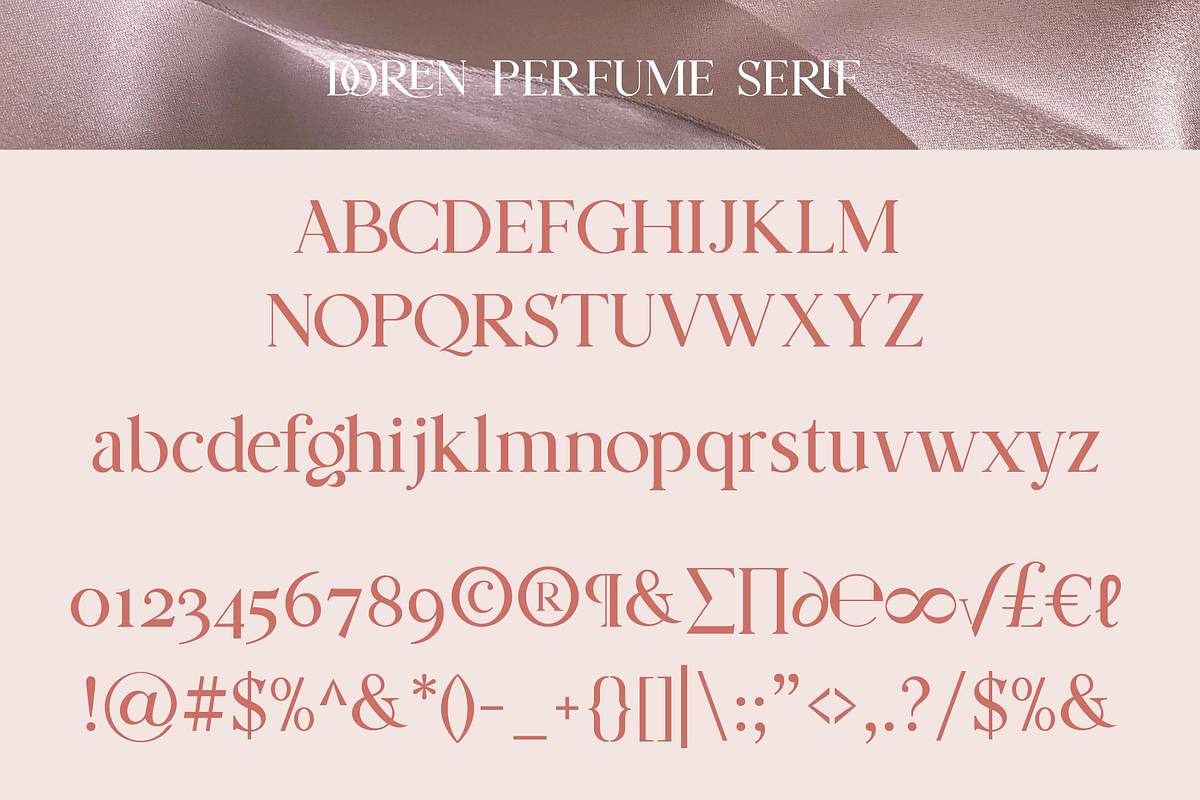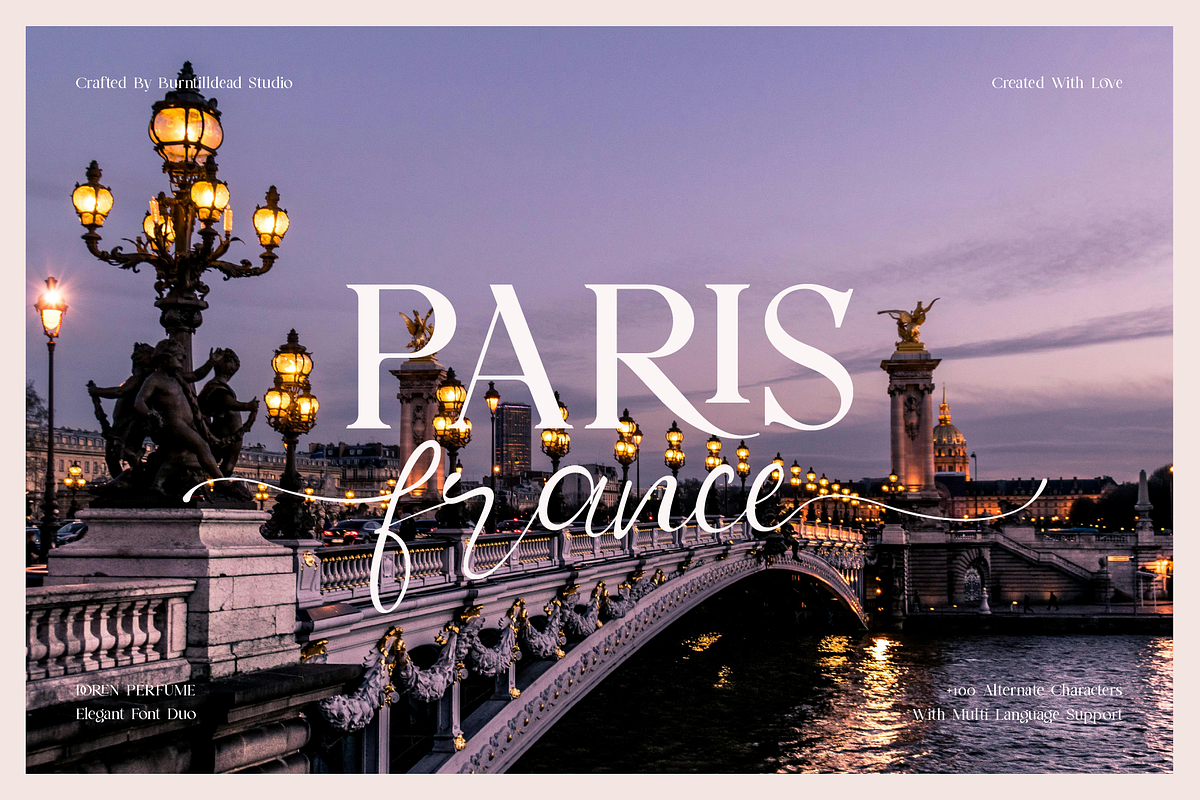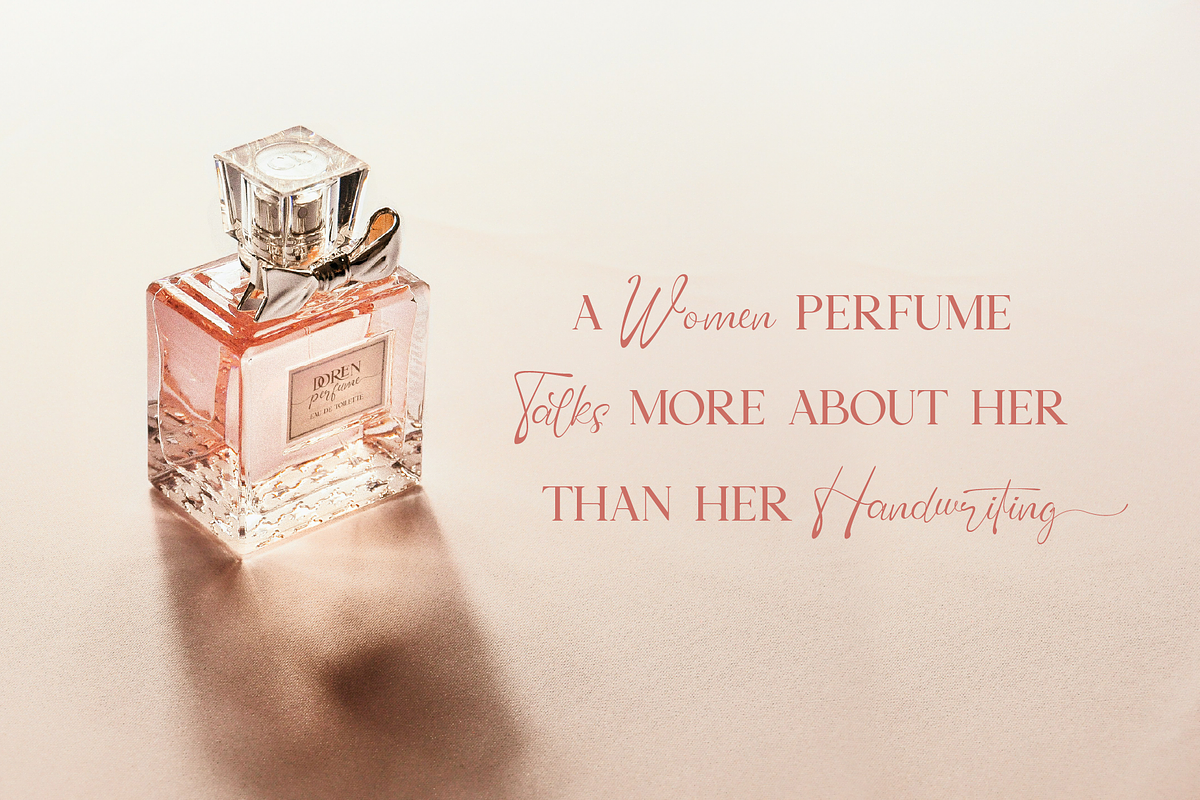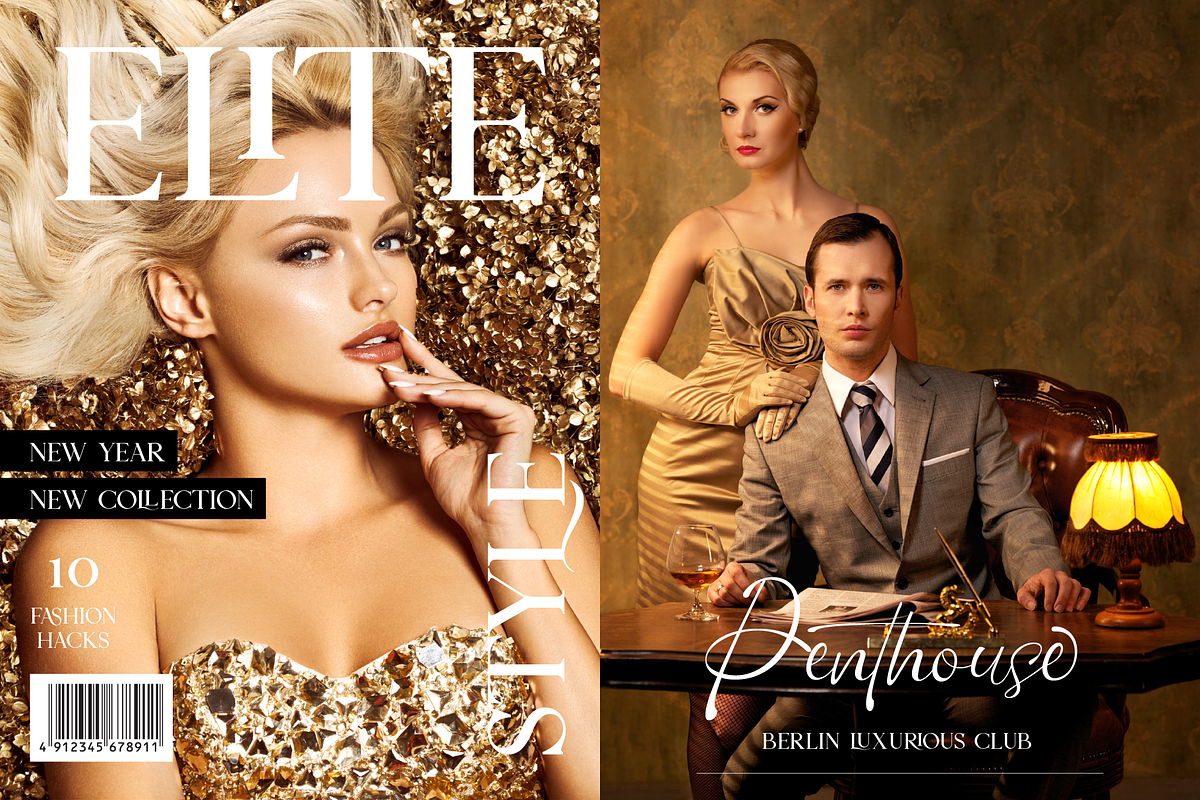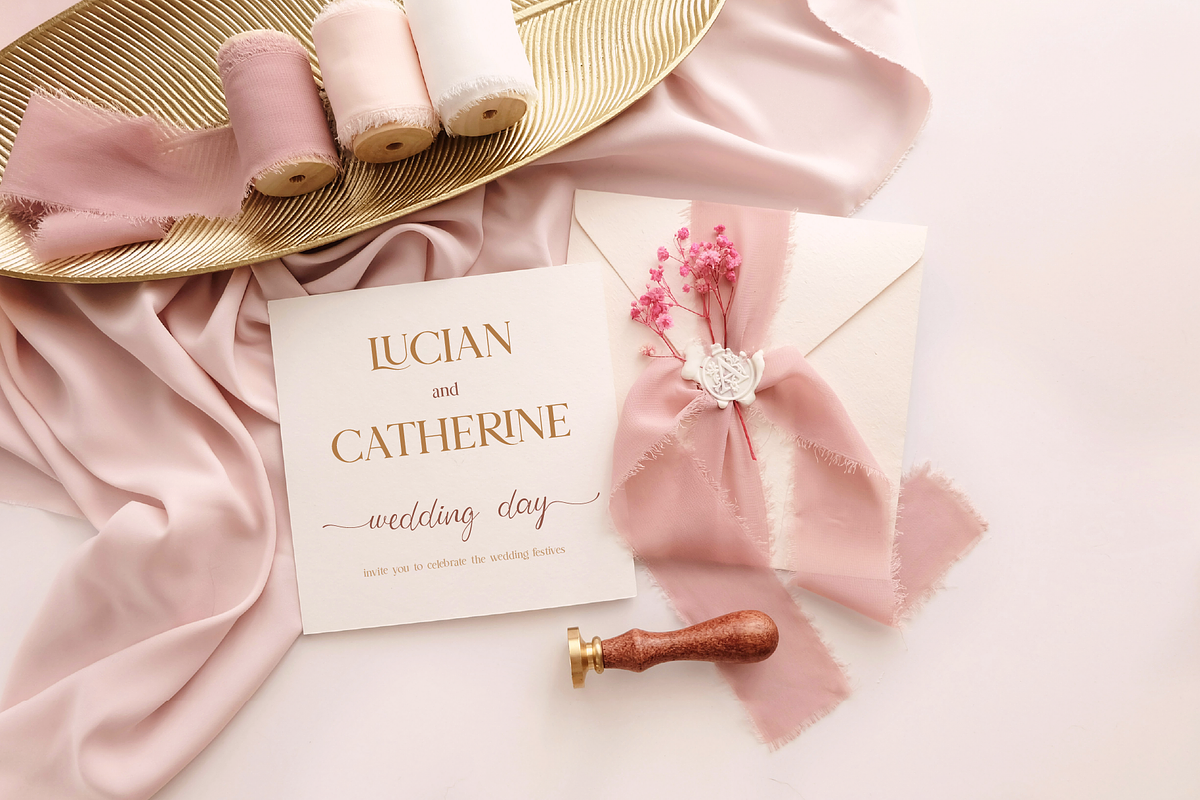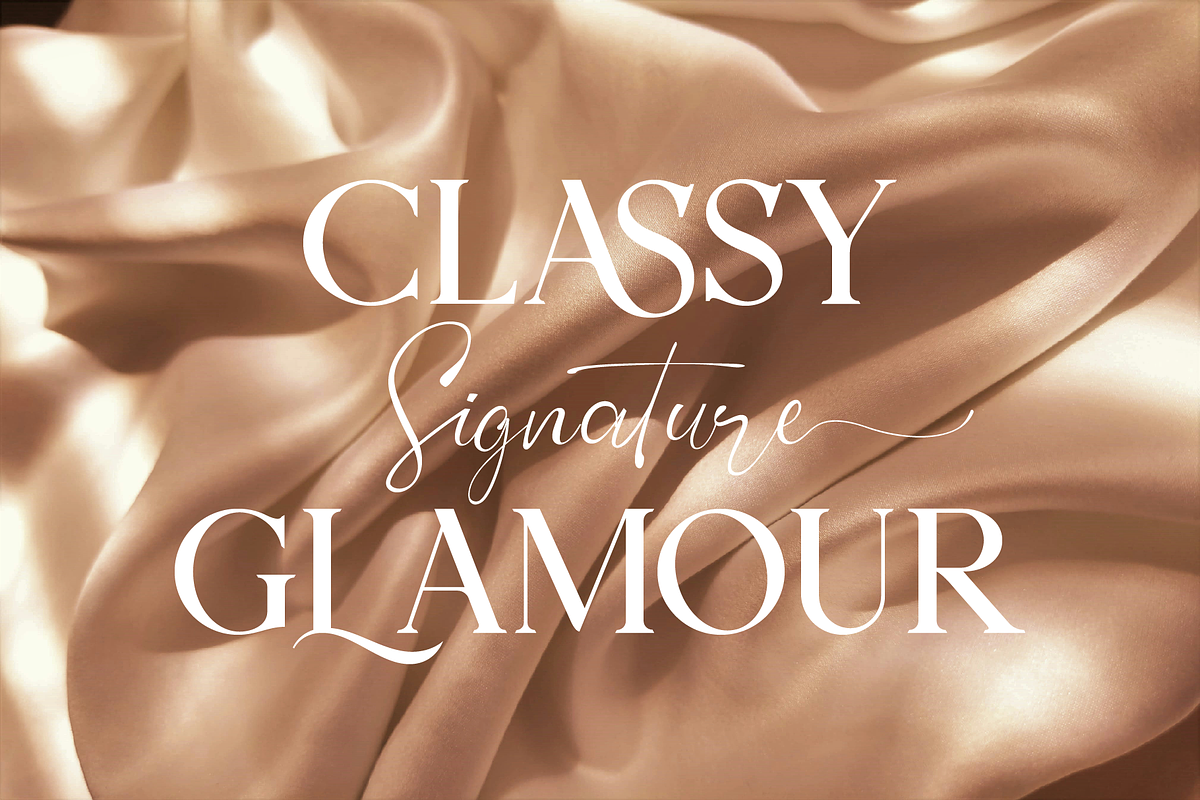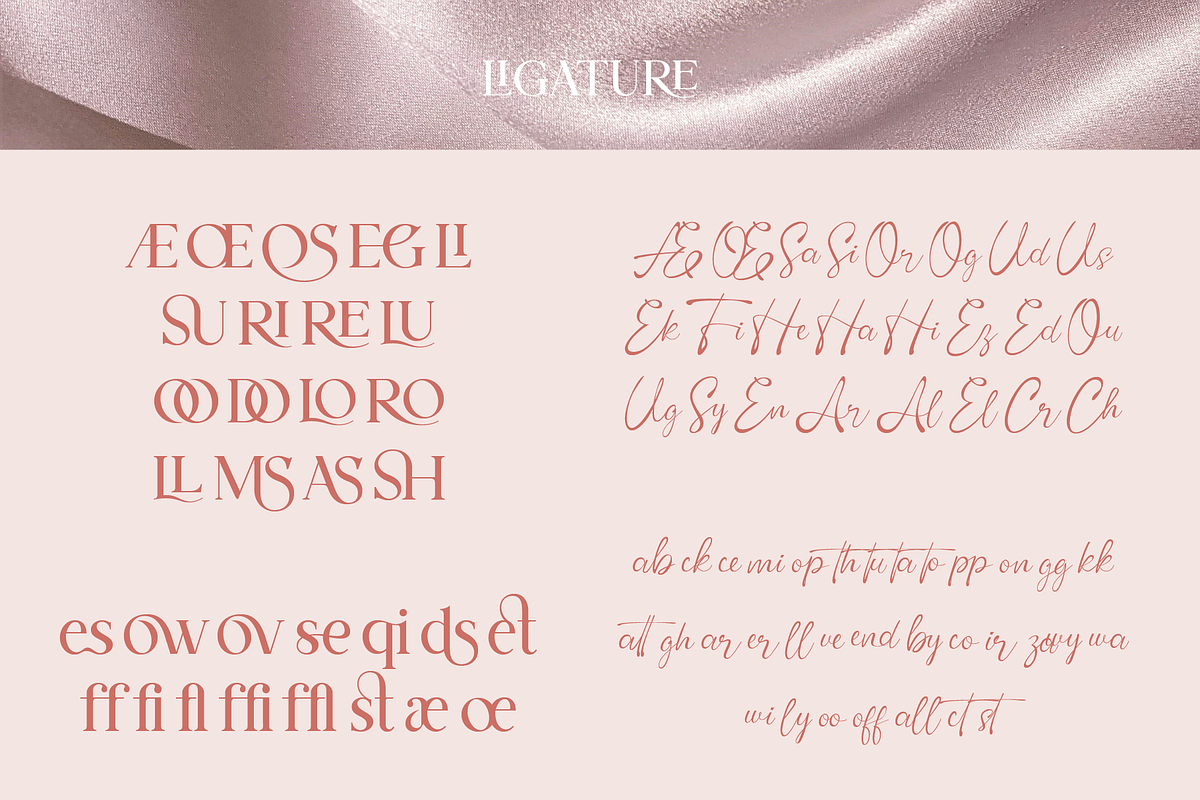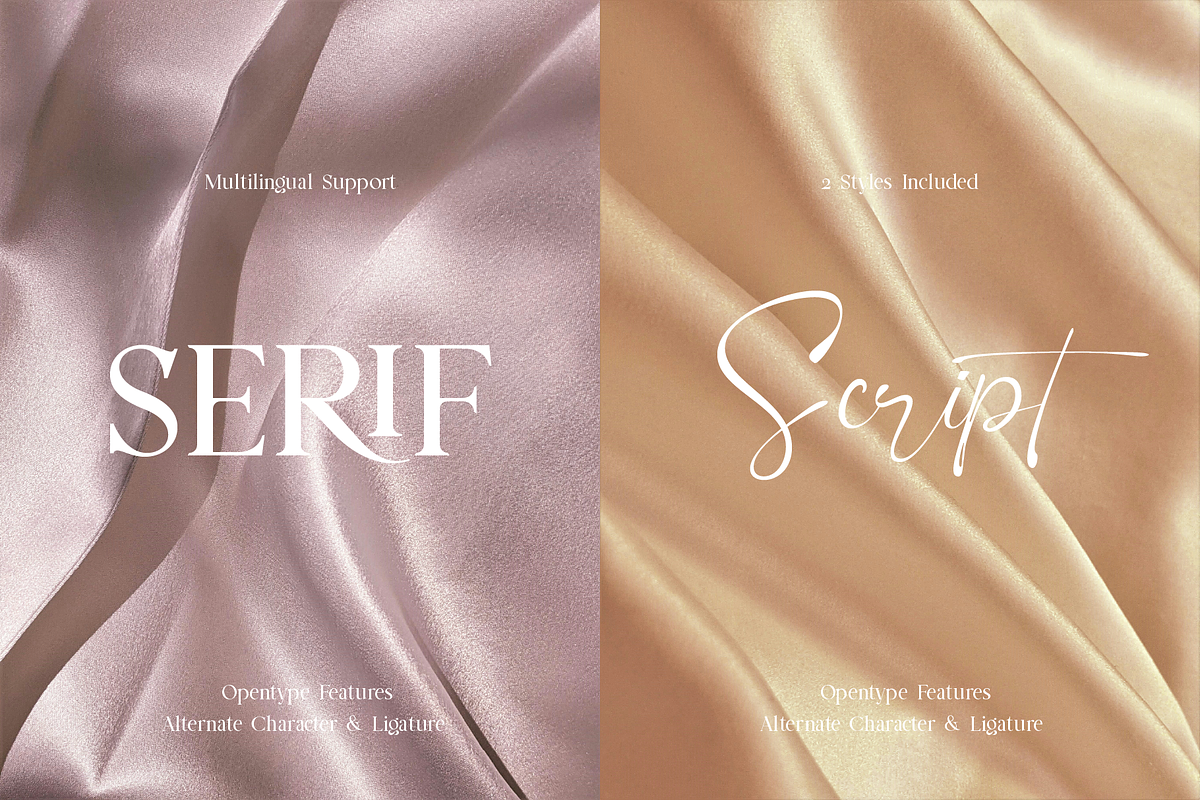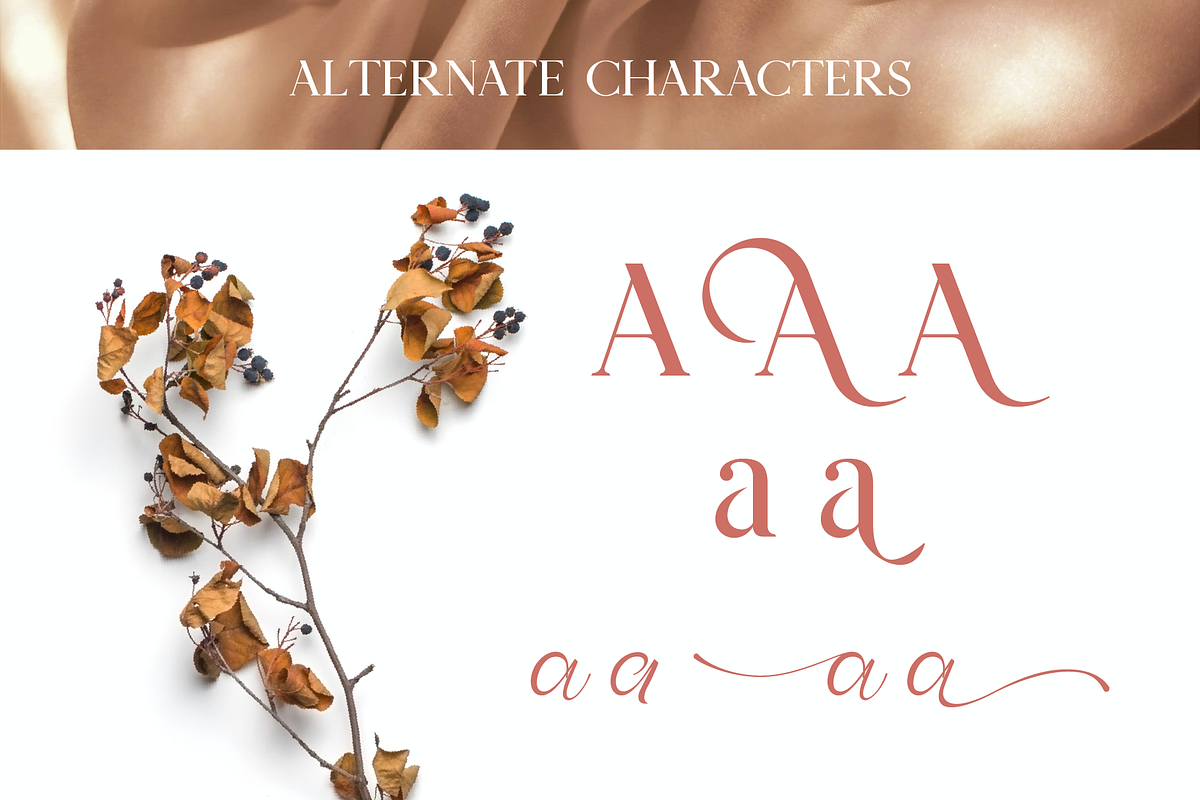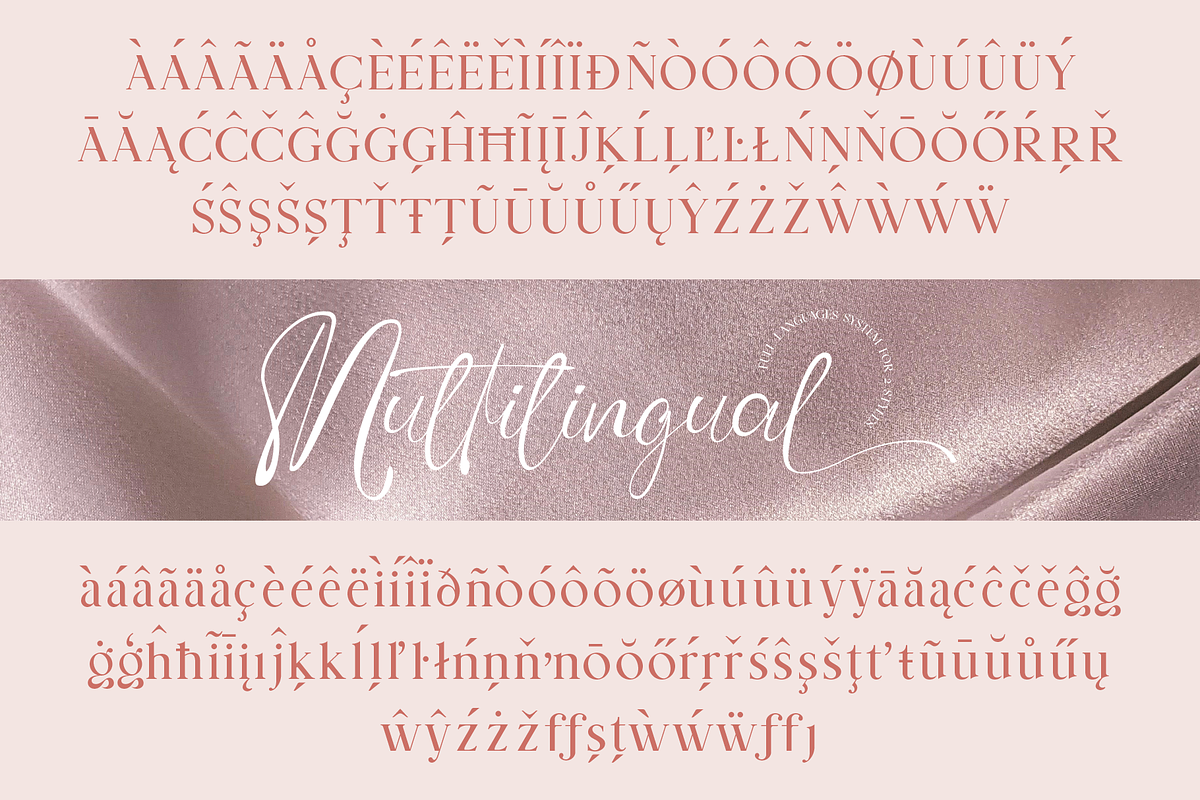
Doren Perfume
Introducing, Doren Perfume, a touch of elegance and glamour font. This font combines the glamour of script and the elegance of serif, creating luxurious and feminine beauty. This font feels classy and modern with the ligatures and alternates, yet this font also has a vintage touch. Multilingual support making it perfect for global use. Perfectly for branding, wedding invitation, luxury branding, fashion brands, beauty product, lifestyle magazine, book cover, brochures, social media, and many more that need luxury touch.
- A - Z set (Uppercase & Lowercase)